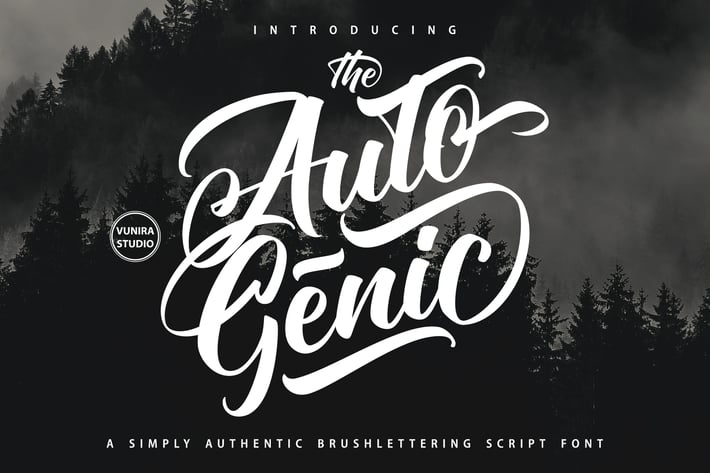
Autogenic | Brush Lettring Font
Autogenic | Brush Lettring Font with a calligraphy style, So beautiful on invitation like greeting cards, branding materials, business cards, quotes, posters, and more!